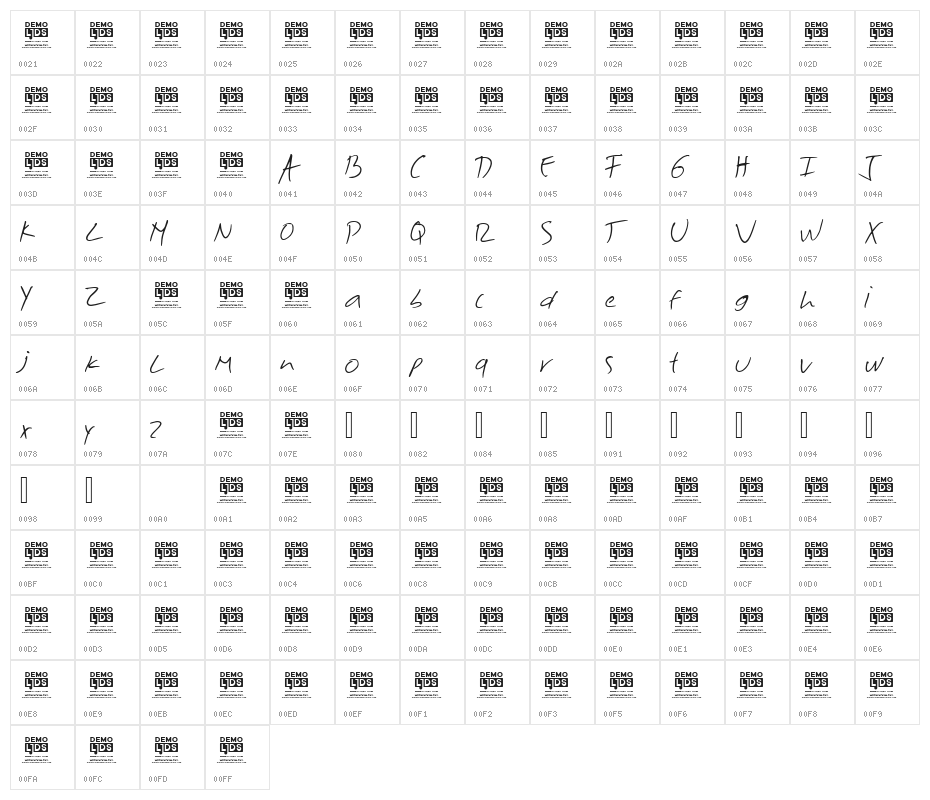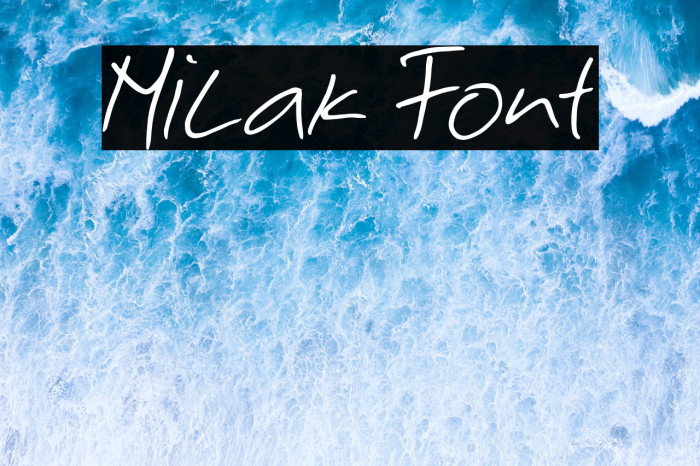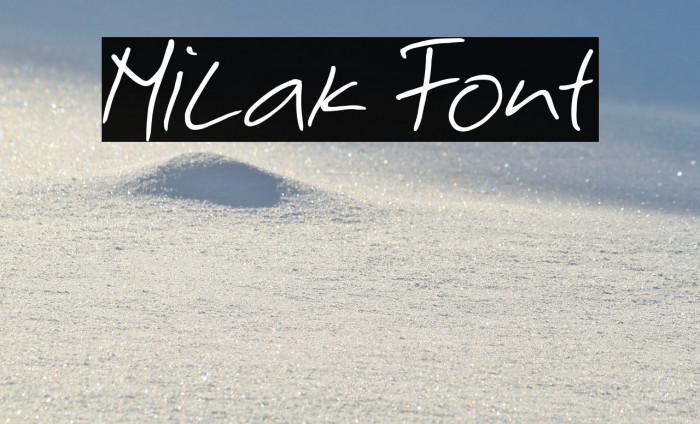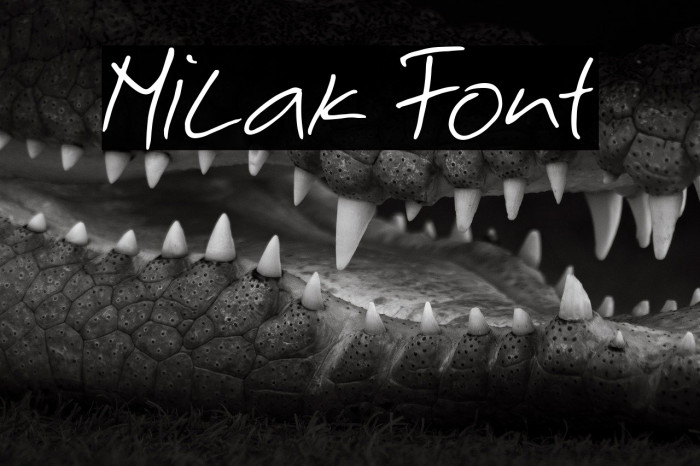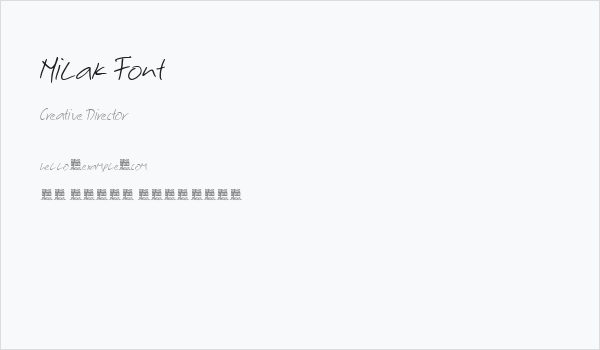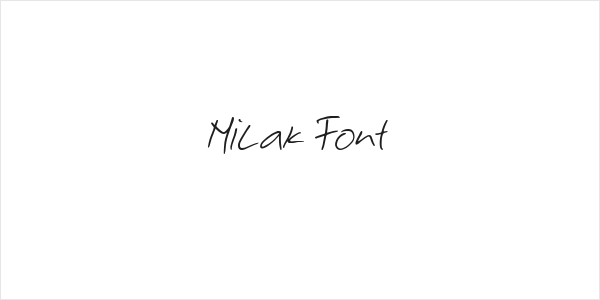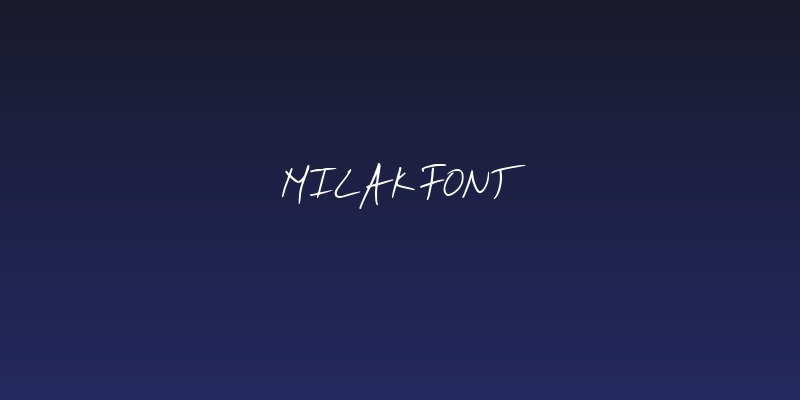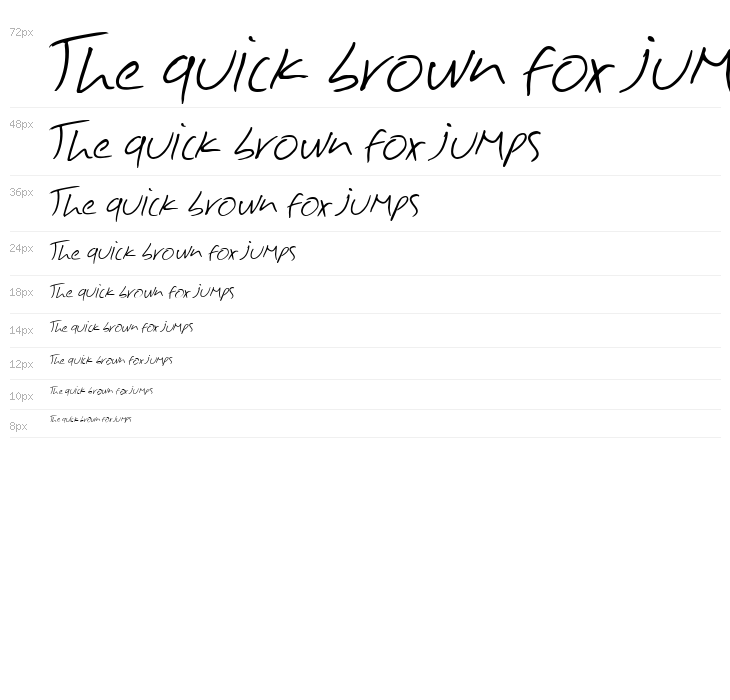
Milak Font Font
Milak Font Description
This font features a handwritten style with a casual and organic feel. The letters are slightly slanted, giving it a dynamic and lively appearance. The strokes vary in thickness, adding a natural and personal touch. The uppercase and lowercase letters maintain a consistent flow, while the numbers and special characters complement the overall aesthetic. This font is ideal for projects that require a personal or informal tone, such as invitations, greeting cards, or creative branding.
A casual handwritten font with dynamic strokes and a lively appearance from Regular fonts.
- Font: Milak Font
- Proposed Projects: Ideal for invitations, greeting cards, personal branding, and creative projects.
- Overall Style: Casual, Organic
- Use Case: Headlines, Logos, Creative projects